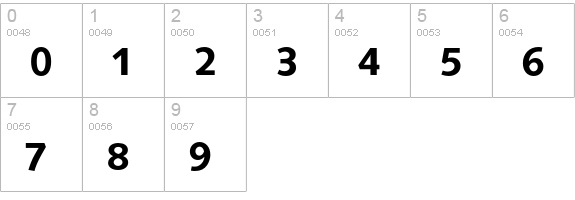
Saxony-DemiBold is a sub-bold, structured variant in the Saxony typeface family \xE2\x80\x94 well suited to sub-headlines and emphasised passages.
Introducing Saxony-DemiBold, a stunning and versatile font that effortlessly combines classic elegance with a modern twist. With its bold yet refined letterforms, Saxony-DemiBold is the perfect choice for any design project that requires a touch of sophistication and a dash of contemporary flair. Designed with meticulous attention to detail, this typeface exudes confidence and style. Its sturdy and confident strokes make a bold statement, while its elegant curves add a touch of grace and refinement. Whether used for headlines, logos, invitations, or any other creative endeavor, Saxony-DemiBold commands attention and elevates any design to new heights. But what truly sets Saxony-DemiBold apart is its unique feature - it's completely free! Yes, you heard it right. This exceptional font is freely available to download at FontsMarket.com, making it accessible to designers, enthusiasts, and creatives from all walks of life. With its generous availability, Saxony-DemiBold ensures that creativity knows no bounds. Whether you're a professional designer working on a high-profile project or an aspiring artist experimenting with typography, this font gives you the freedom to express your vision effortlessly. The versatility of Saxony-DemiBold knows no bounds. Its wide range of weights and styles allows you to explore endless design possibilities. From bold and impactful headlines to delicate and refined body text, Saxony-DemiBold adapts effortlessly to any context, delivering a consistent and visually captivating experience. So why wait? Embrace the freedom of creativity and elevate your designs with the enchanting Saxony-DemiBold font. Download it now, free of charge, at FontsMarket.com, and unlock a world of possibilities for your next project.